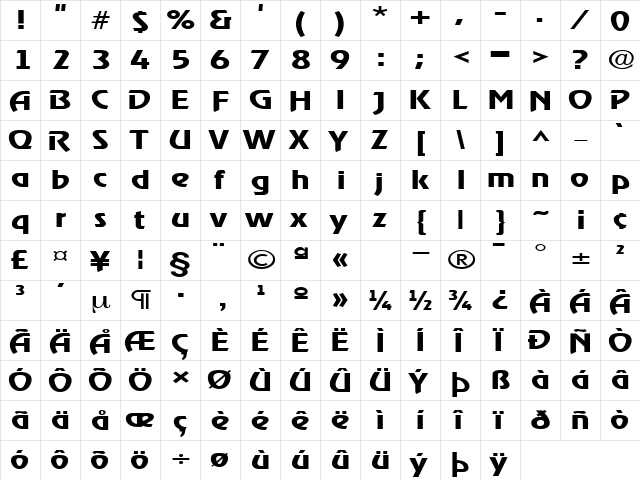
XanadauExtended Regular
Design Context for XanadauExtended Typeface
XanadauExtended offers clean, dependable letterforms without strong stylistic allegiance, making it a practical choice for designers who need flexibility.